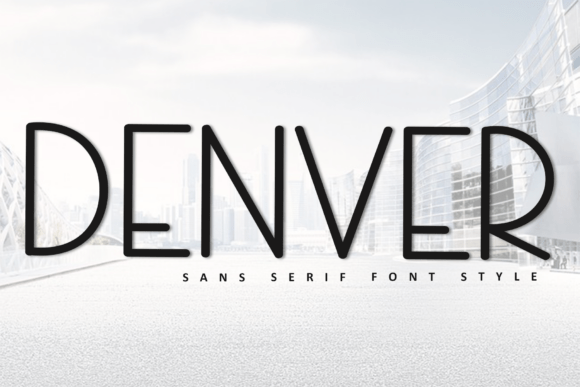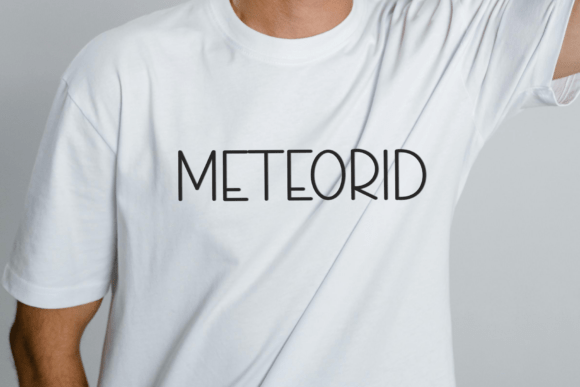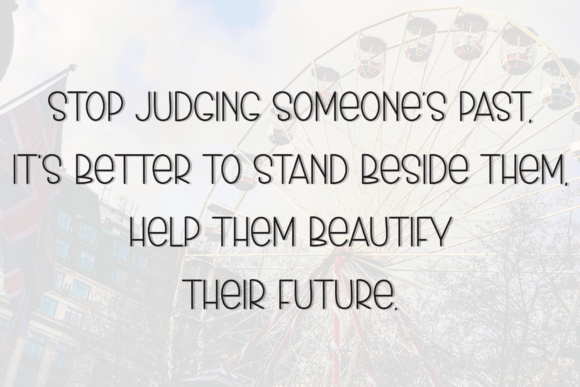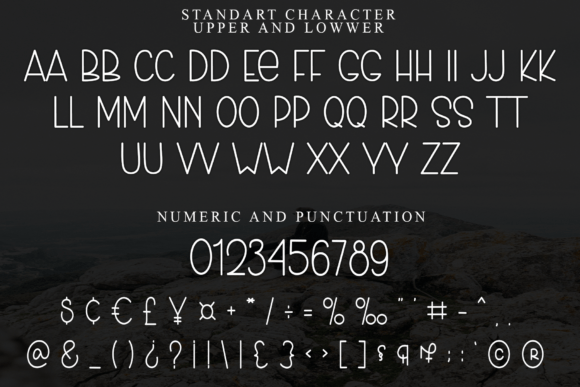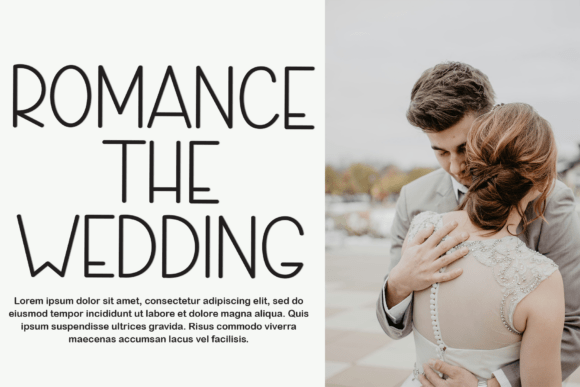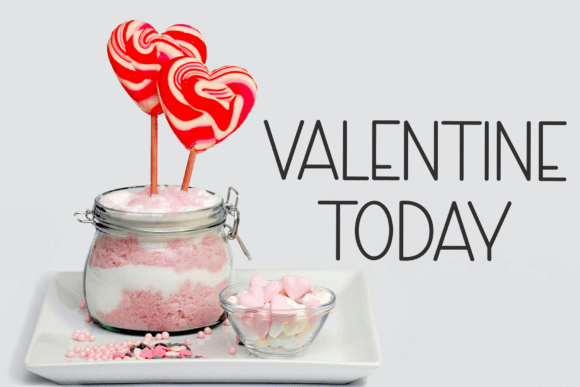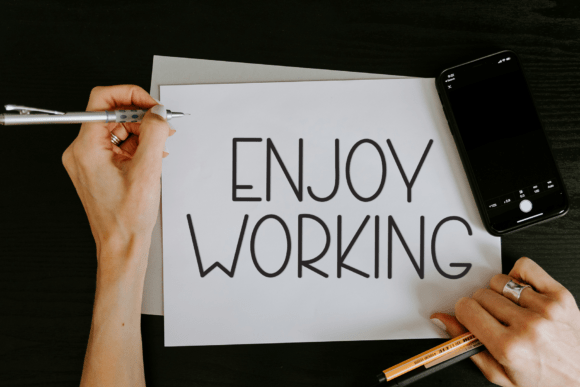
The Birth of a New Design Era: Introducing the Denver Font
Have you ever stared at a blank page, feeling the weight of a design project looming over you, and suddenly, the perfect font pops into your head? It’s a moment of pure creative bliss, and it’s exactly what happened when designers first laid eyes on the Denver Font. This beautiful and eye-catching font was designed to bring a soft, unique touch to any project, making it the perfect addition to any design arsenal.
The Denver Font is a versatile and meaningful font, perfect for a wide range of creative works, from design projects to crafts. Its distinctive strokes give it a special character that sets it apart from other fonts, making it a valuable tool for designers looking to add a personal touch to their work. With its compatibility with various applications, including Windows and open-source platforms, the Denver Font is ideal for designers who want to enhance their designs and make them appealing to a wide audience.
DENVER FONT KEY FEATURES
- Font Family: Denver Font is a sans-serif font family designed for digital use.
- Font Size: The font family includes multiple weights ranging from Thin (100) to Black (900), with 9 styles in total.
- Resolution: Optimized for high-resolution displays (Retina, 4K, etc.) with crisp and clear typography.
- Unique Characteristics: Denver Font features a unique geometric shape with rounded edges, giving it a friendly and approachable feel.
- Language Support: Supports a wide range of languages, including Latin, Cyrillic, Greek, and more, making it suitable for global applications.
Denver Font Review
When I first laid eyes on the Denver Font, I was immediately struck by its modern, sans-serif design. ✨ The clean lines and geometric shapes give it a sleek, contemporary feel that’s perfect for modern branding and design projects. ✨ The font’s versatility is also a major plus – it works beautifully for both digital and print applications.
Here are some of the Denver Font’s standout features:
- ✨ Highly legible and easy to read, even at small font sizes.
- ✨ A wide range of weights and styles, from light to bold, to suit your design needs.
- ✨ Excellent for use in digital interfaces, signage, and other display applications.
- ⚠️ The font may not be the best choice for traditional or formal designs, where a more classic or serif font might be preferred.
- ⚠️ Some users may find the font too minimalist or lacking in personality.
Overall, the Denver Font is a solid choice for designers looking for a modern, versatile font. While it may not be the best fit for every project, it’s definitely worth considering for its clean design and wide range of applications.
Tips for Getting the Most Out of Denver Font
Use the Denver Font for headings and titles to add a touch of elegance and sophistication to your designs. Experiment with different font sizes and colors to create visual interest. Combine the Denver Font with other fonts to create a unique and eye-catching design.
The Denver Font is ideal for:
- Creating elegant headings and titles
- Designing luxury branding materials
- Adding a touch of sophistication to digital products
Montserrat Font is a sans-serif font inspired by urban typography, making it ideal for modern and urban designs. It has a strong and geometric feel, suitable for headlines and titles. When to use: For projects requiring a strong, urban, and modern look. Comparison to Denver Font: Montserrat Font has a more geometric feel compared to Denver Font’s rounded edges and softer appearance.